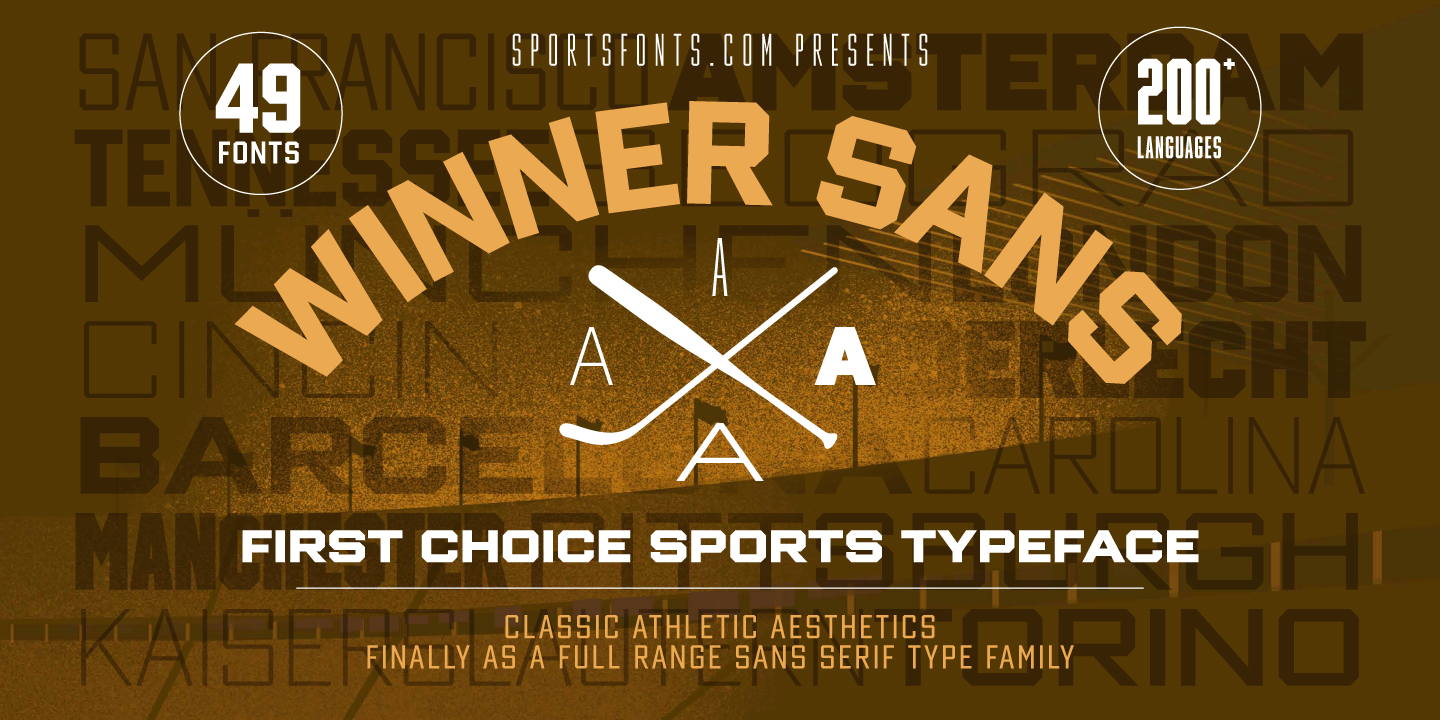
Winner Sans Font is perfect for sports branding, championship certificates, athletic team logos, fitness marketing materials, motivational posters, competition announcements, award ceremonies, victory celebrations, and high-energy advertising campaigns. This dynamic typeface brings confidence, strength, and triumphant energy to any project that needs to communicate success and achievement.
What makes Winner Sans Font exciting is its bold, assertive character that instantly conveys victory and determination. The font features strong, confident letterforms with powerful geometric construction and excellent visual impact that commands attention and respect. Its winning personality combines athletic strength with modern sophistication, making it ideal for brands and projects that want to inspire achievement and celebrate success while maintaining professional credibility.
The Winner Sans Font family typically includes multiple weights from regular to extra bold, with clean uppercase and lowercase letters, numerals, and punctuation marks. Some versions may feature condensed or extended variations to provide additional flexibility for different design applications and space requirements.
Whether you're designing championship banners or motivational content, Winner Sans Font Free Download delivers the competitive edge your projects need to stand out. This typeface excels in high-impact applications where readability and visual strength are equally important. Its victorious aesthetic makes it particularly effective for sports organizations, fitness brands, and any business that wants to associate with success and excellence. The font's powerful presence helps create memorable brand experiences that inspire confidence and motivate audiences to achieve their goals and celebrate their victories.